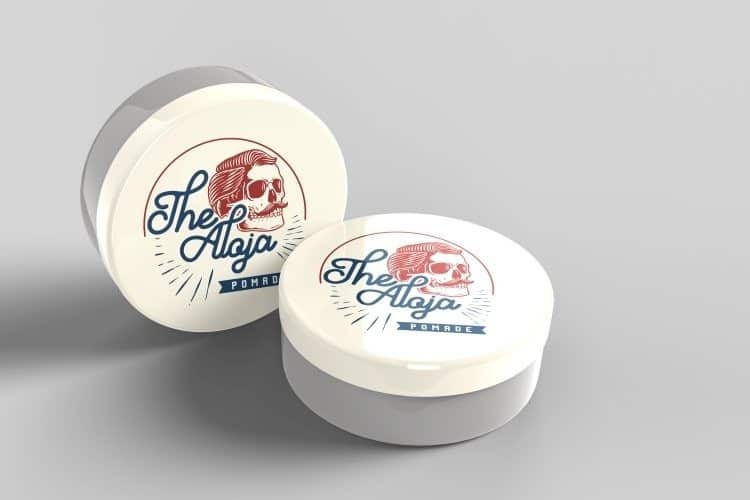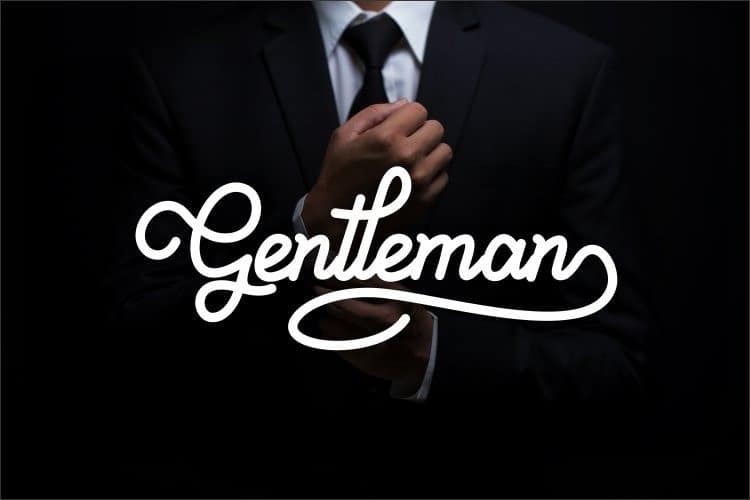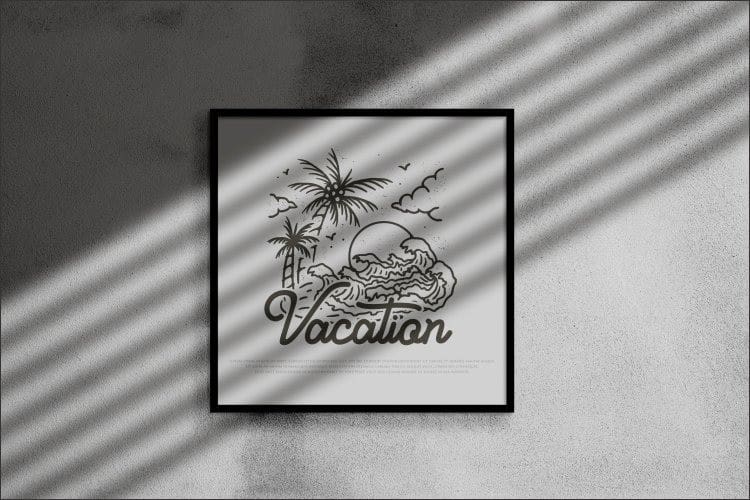
Aloritma Script Font
Introducing Aloritma Script Font a beautiful monoline script crafted very carefully and a super fun hand written sans make up this open type font. Script includes capital alternates as well as beginning and ending swashed alternates. This font will looks awesome and amazing in many way to your latest project. Aloritma is perfect for many different project such as logos & branding, invitation, stationery, wedding designs, social media posts, advertisements, product packaging, product designs, label, photography, watermark, special events or anything.